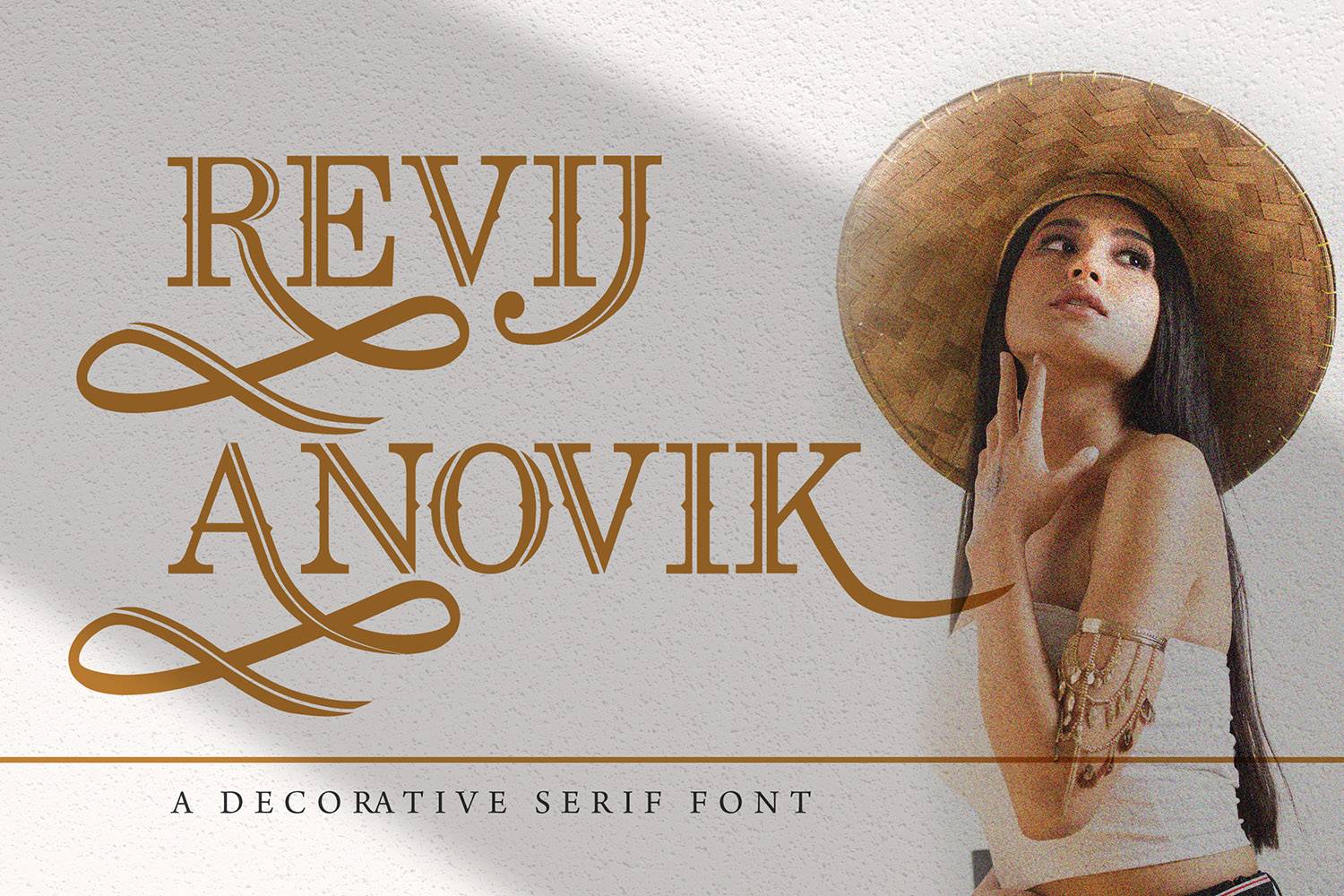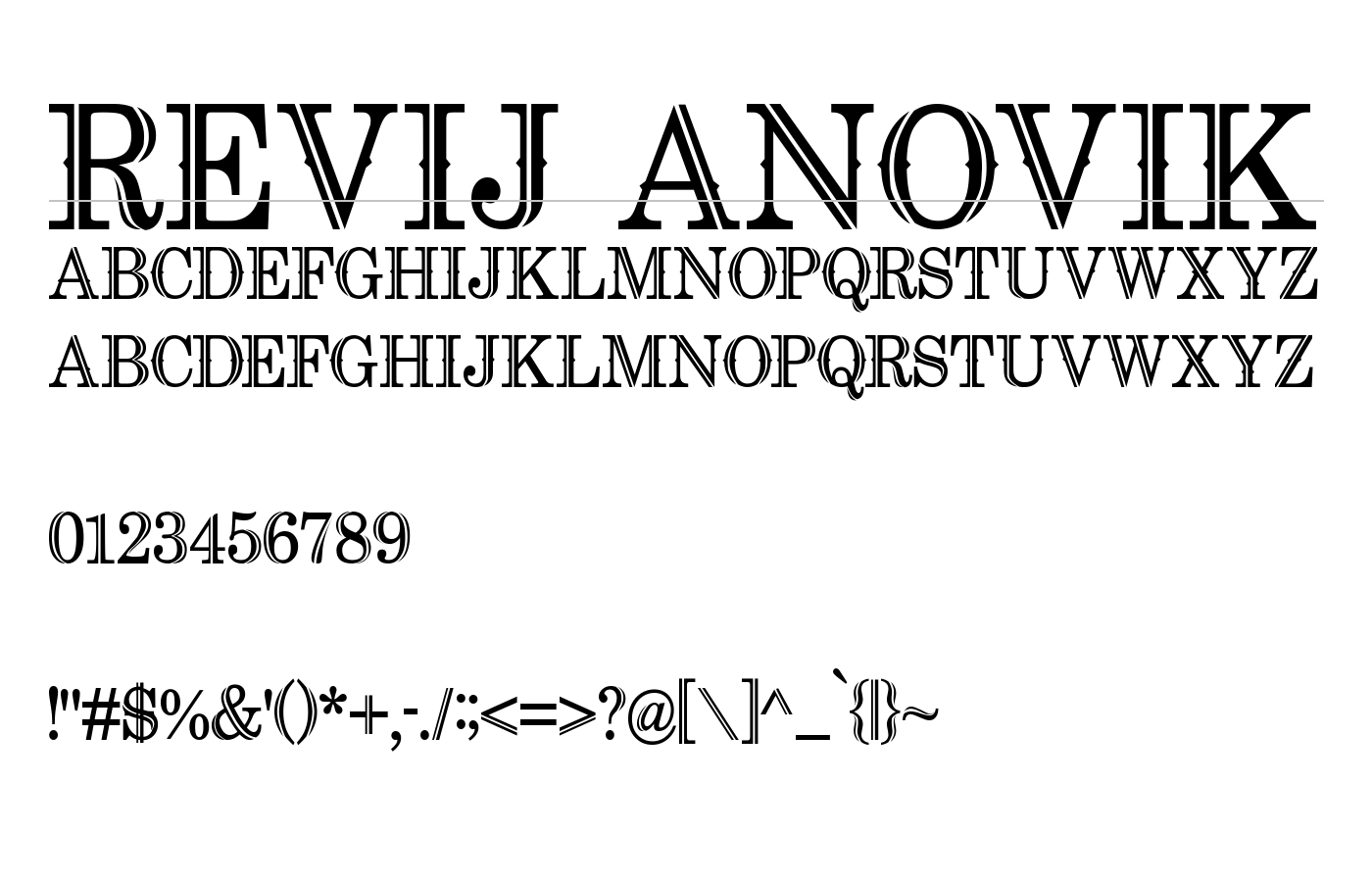
Revij Anovik is a distinctive slab serif font with a strong vertical emphasis and high stroke contrast, featuring sharp, bracketed serifs that give it a refined yet bold presence. Its condensed letterforms and elegant details make it ideal for striking headlines, logos, and editorial use where a vintage yet authoritative style is desired. This font combines classic serif sophistication with a modern edge, perfect for fashion, luxury branding, and creative packaging.
Revij Anovik Font
About Revij Anovik Font